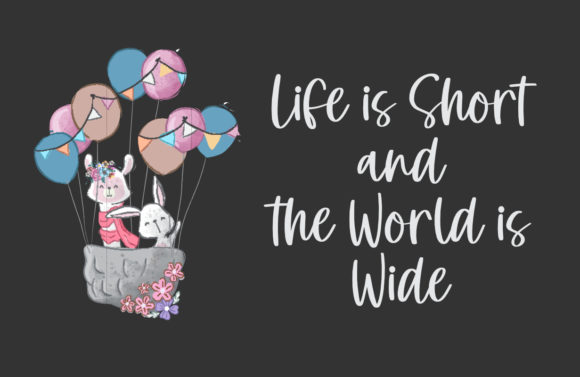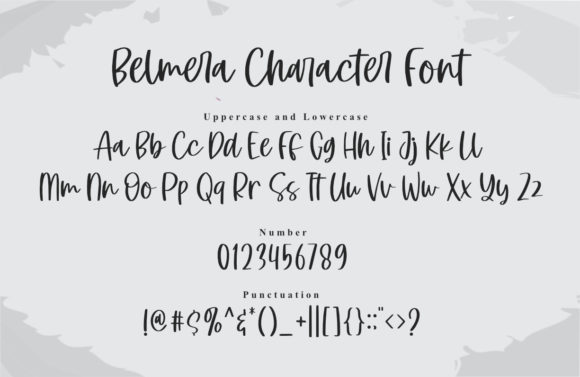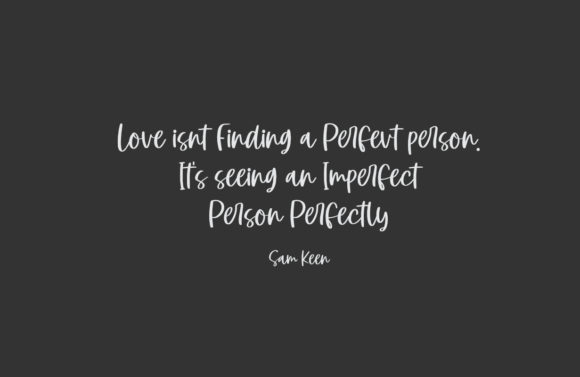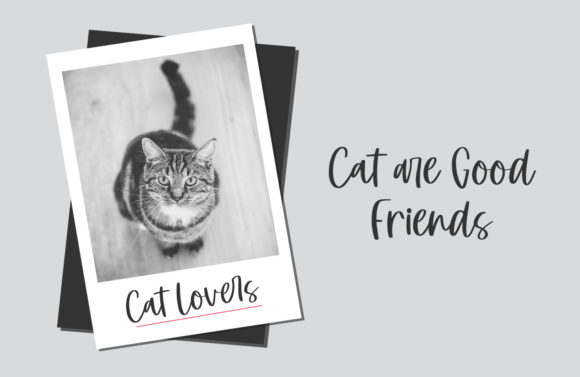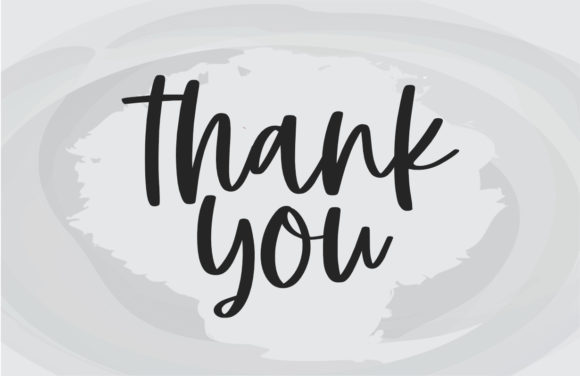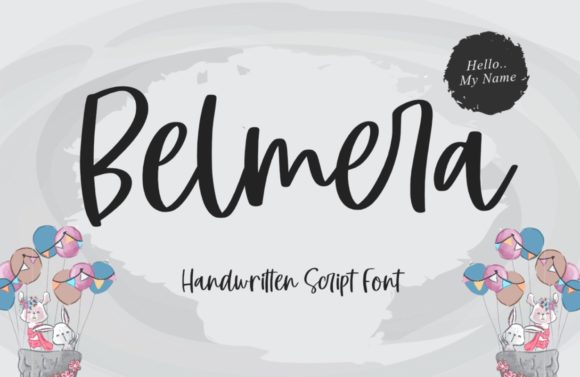
The Belmera Font: A Handwritten Gem for Creative Projects
I’ll never forget the time I was working on a wedding invitation design project, and my client asked me to create a custom font to match their elegant yet playful theme. I spent hours scouring the internet for the perfect font, but nothing seemed quite right. That’s when I stumbled upon the Belmera font, and it instantly became my go-to. In this article, I’ll share my experience with this beautiful font, its features, and how to make the most of it in your design projects.
An Honest Review of Belmera Font
As a designer, I’m always on the lookout for fonts that can elevate my projects to the next level. The Belmera font has become a true favorite of mine, and here’s why:
- ✨ Cute and flowing handwritten style: Belmera’s unique blend of elegance and playfulness makes it perfect for a wide range of design projects.
- ✅ High-quality craftsmanship: The font is carefully handcrafted, ensuring that every letter and glyph is of the highest quality.
- ✅ Versatility: Belmera can be used for branding, headings, wedding designs, invitations, signatures, logos, labels, and much more!
However, no font is perfect, and Belmera has a few quirks:
- ⚠️ Limited use in body text: Due to its elegant and cursive nature, Belmera might not be the best choice for long blocks of body text.
- 🤔 Some glyphs may require adjustment: Depending on your design, you might need to tweak certain glyphs to ensure they fit perfectly.
- Experiment with OpenType features, such as Stylistic Alternates and Glyphs, to add more personality to your design.
The Story Behind Belmera Font
The Belmera font was created by a talented type designer who wanted to craft a unique and elegant handwritten font. Inspired by the beauty of handwritten letters, the designer carefully crafted each glyph to ensure that Belmera would become a true favorite among designers. Although the designer’s story is fictional, it’s clear that their passion and dedication have resulted in an exceptional font.
| What is the best use for Belmera font? | Belmera font is perfect for creative projects that require a touch of elegance and playfulness, such as branding, headings, wedding designs, invitations, and more. |
| Is Belmera font suitable for body text? | While Belmera font is beautiful, it might not be the best choice for long blocks of body text due to its elegant and cursive nature. |